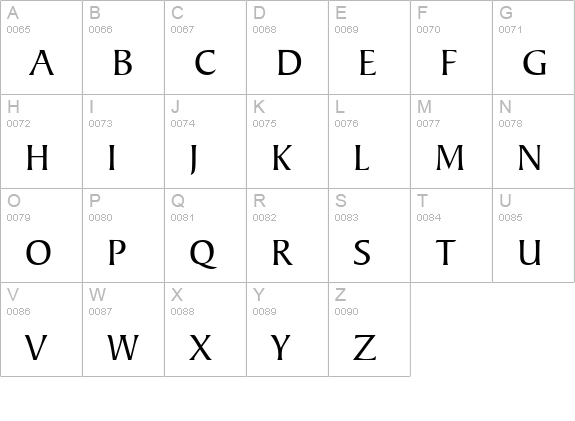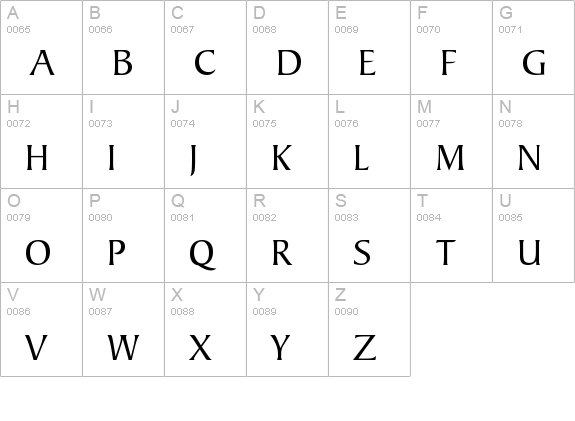
Barrett Normal is the standard, neutral variant in the Barrett typeface family \xE2\x80\x94 well suited to general body text, paragraphs, and standard typographic work.
Barrett Normal font is a sleek and modern typeface that exudes sophistication and elegance. With its clean lines and balanced proportions, Barrett Normal is perfect for a wide range of design projects, from branding to editorial design. This versatile font is free to download at FontsMarket.com, making it accessible to designers and creators looking to elevate their work with a touch of class. Whether you're working on a website, logo, or print design, Barrett Normal font is sure to make a lasting impression with its timeless appeal and contemporary flair. Download it today and add a touch of refinement to your projects.